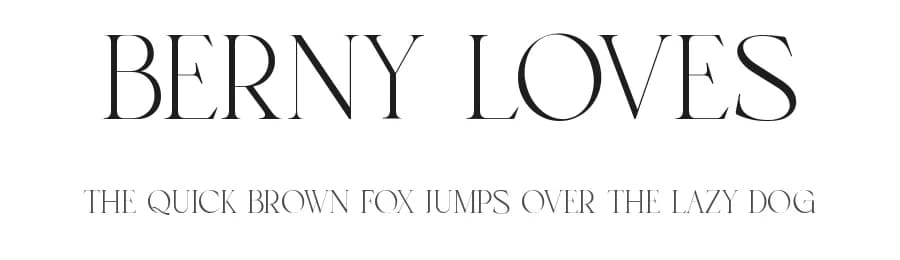
About Berny Loves Font
Berny Loves Specifications
| Font Family | BERNY LOVES |
| Full Name | BERNY LOVES |
| PostScript Name | BERNYLOVESRegular |
| Designer | Saiful Fahri |
Berny Loves Font is a versatile serif font that works for both headings and body text. Pair it with a contrasting sans-serif or slab serif font to add visual interest and a clear distinction between titles and body copy.